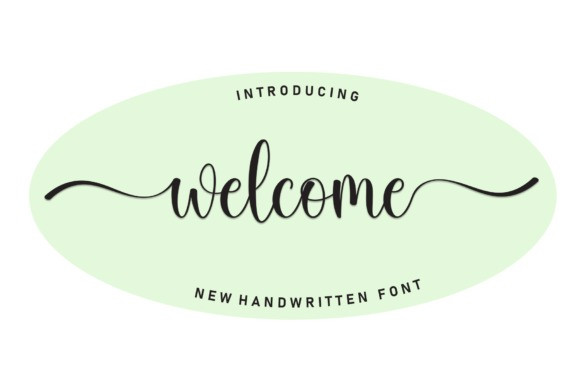
Welcome Script Type
Welcome Script Type is a fun and versatile handwritten font. Whether you’re using it for crafting, digital designing, presentations, or greeting card making, it’s perfect!